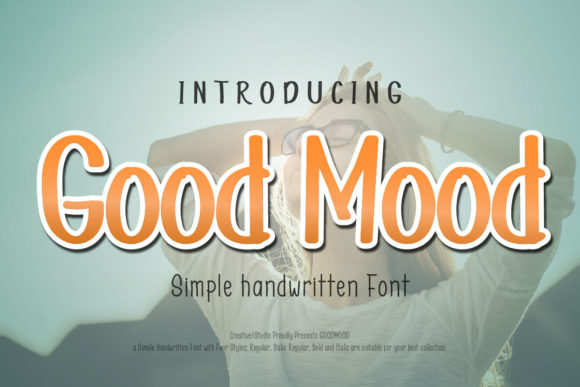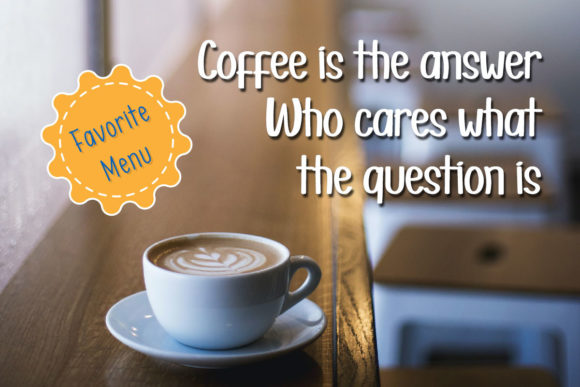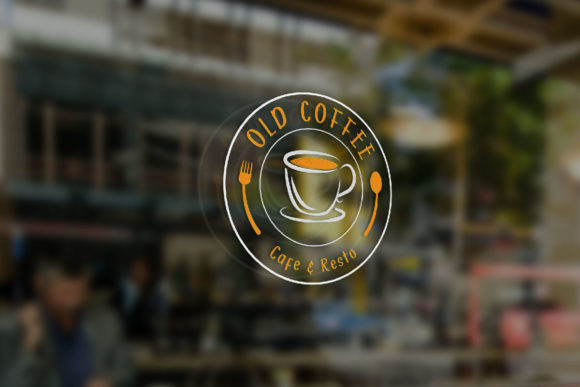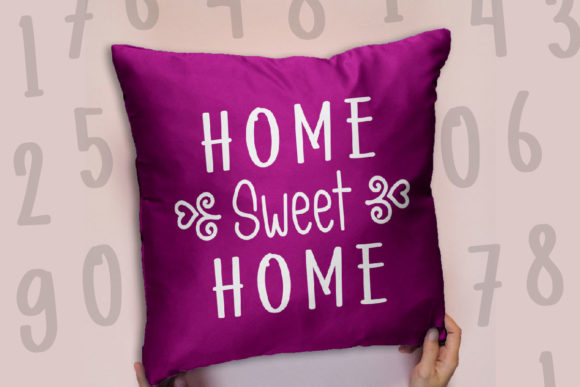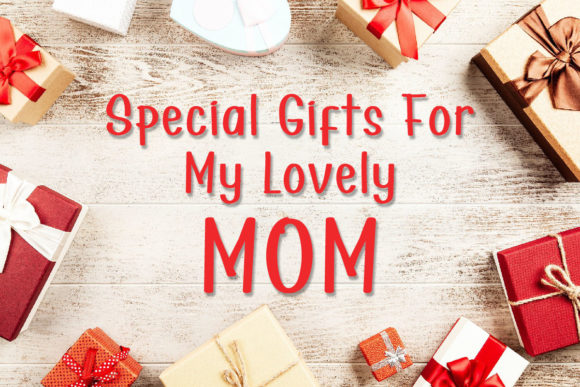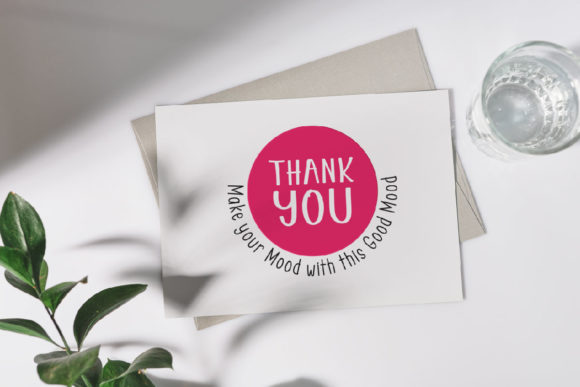
Good Mood Font
About Good Mood Font
Good Mood is a simple handwritten font with multiple styles and a versatile feel. Minimalistic and neat, this typeface is suitable for various projects and crafty ideas, so add it confidently to any item!